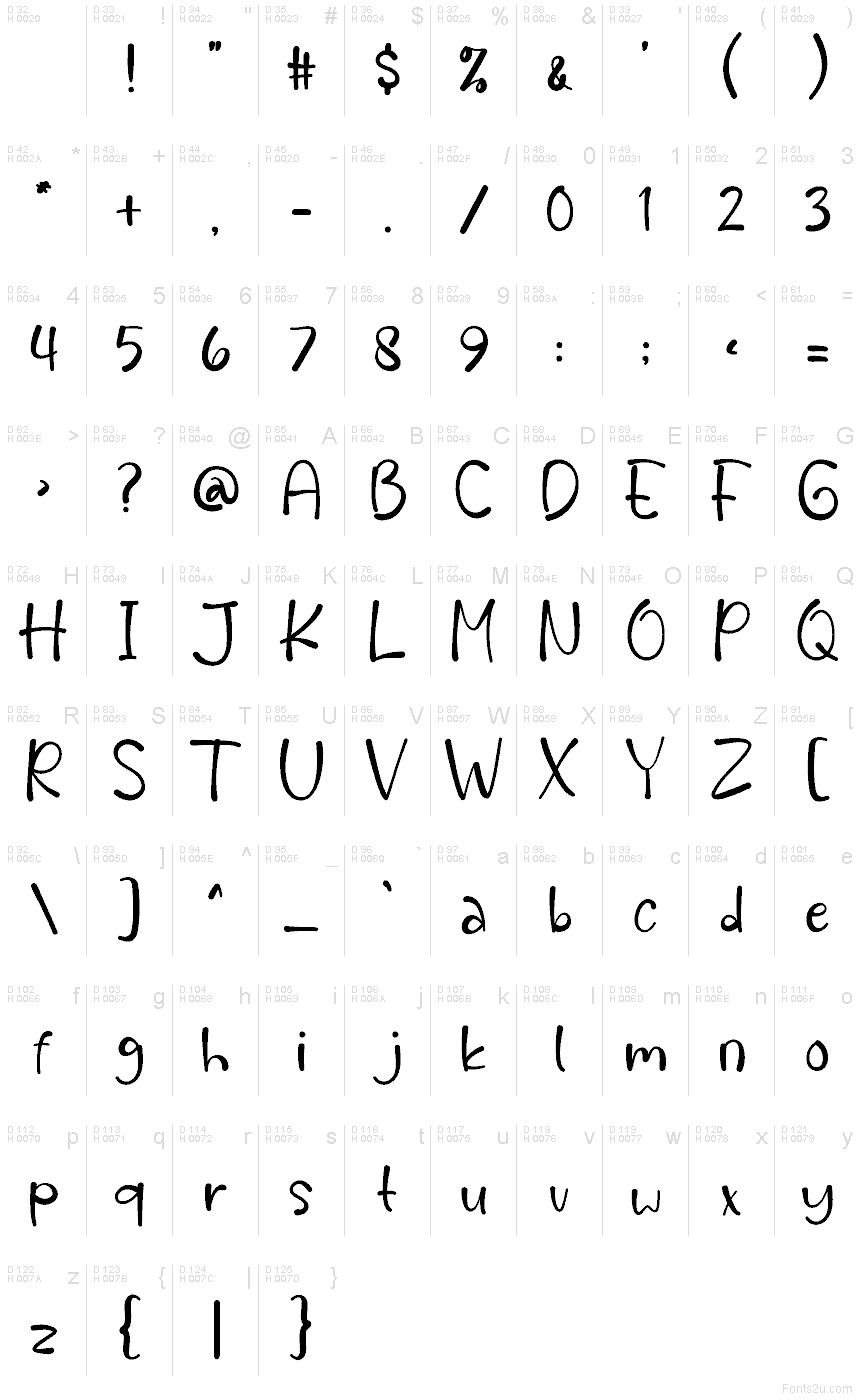
Giant
Giant font by Erik Studio is a cute display type, clean and slightly quirky in style. The font’s organically rounded characters carry a whimsical vibe that reflect playful ideas. They give it lighthearted and dynamic touch suitable for both formal and informal design projects.
This free cartoon display font can be used in logos, branding, social media designs, DIY crafts, labels, packaging design, book covers for children’s books among other literature genres especially novels. Other use include T-Shirt print items designs based on typography.